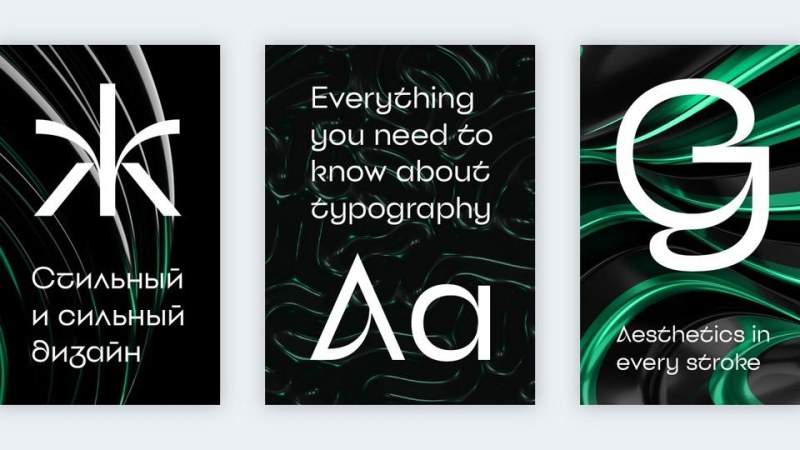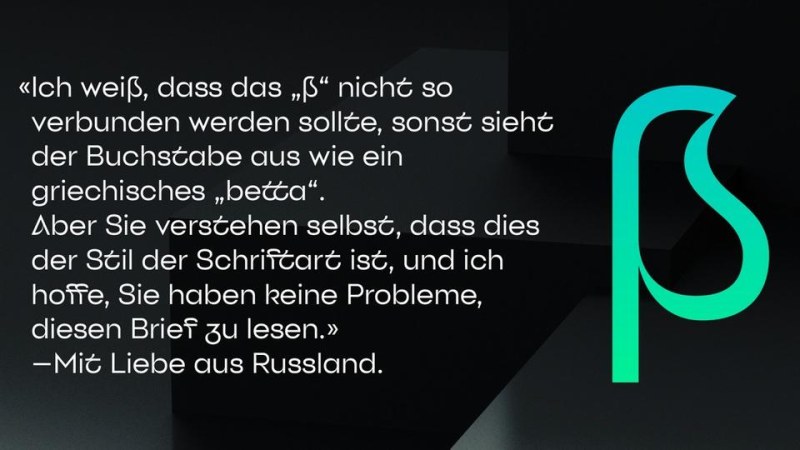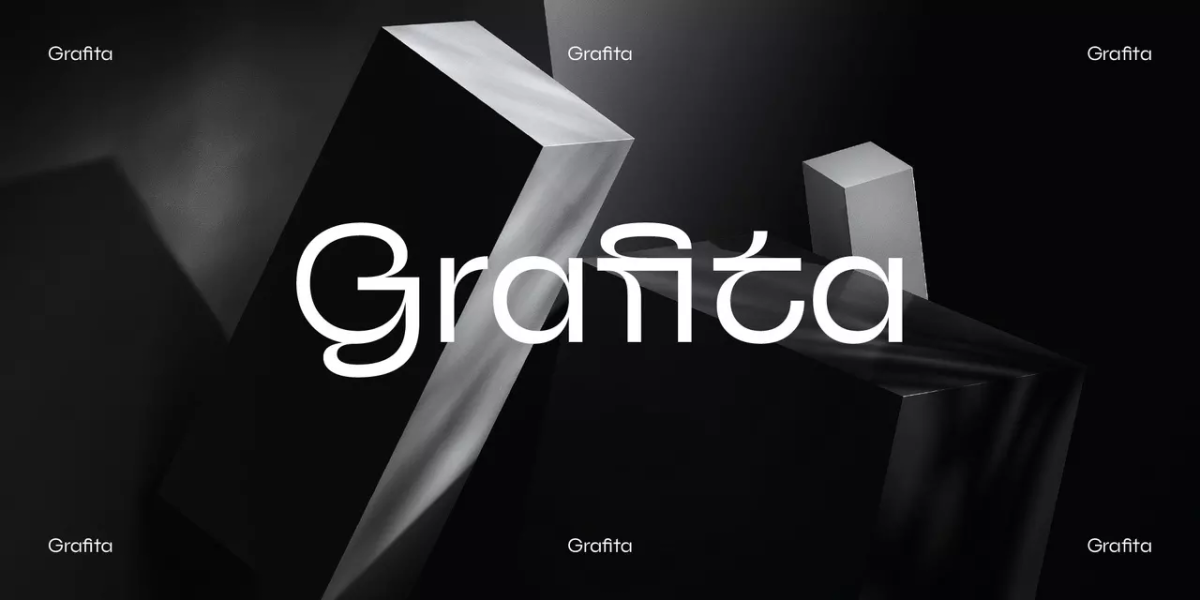
Grafita Font Family
Grafita is a typeface pair where one font is a strict geometric grotesque and the other is more playful and display. The first typeface is suitable for typing large amou…
Grafita is a typeface pair where one font is a strict geometric grotesque and the other is more playful and display. The first typeface is suitable for typing large amounts of text. The second is for headlines, logos, posters, covers, spectacular presentations, and more. Combining these fonts would be great for branding, websites and other tasks. Each fonts has extensive language support, OpenType features such as ligatures, alternate characters, fractional numbers and more.